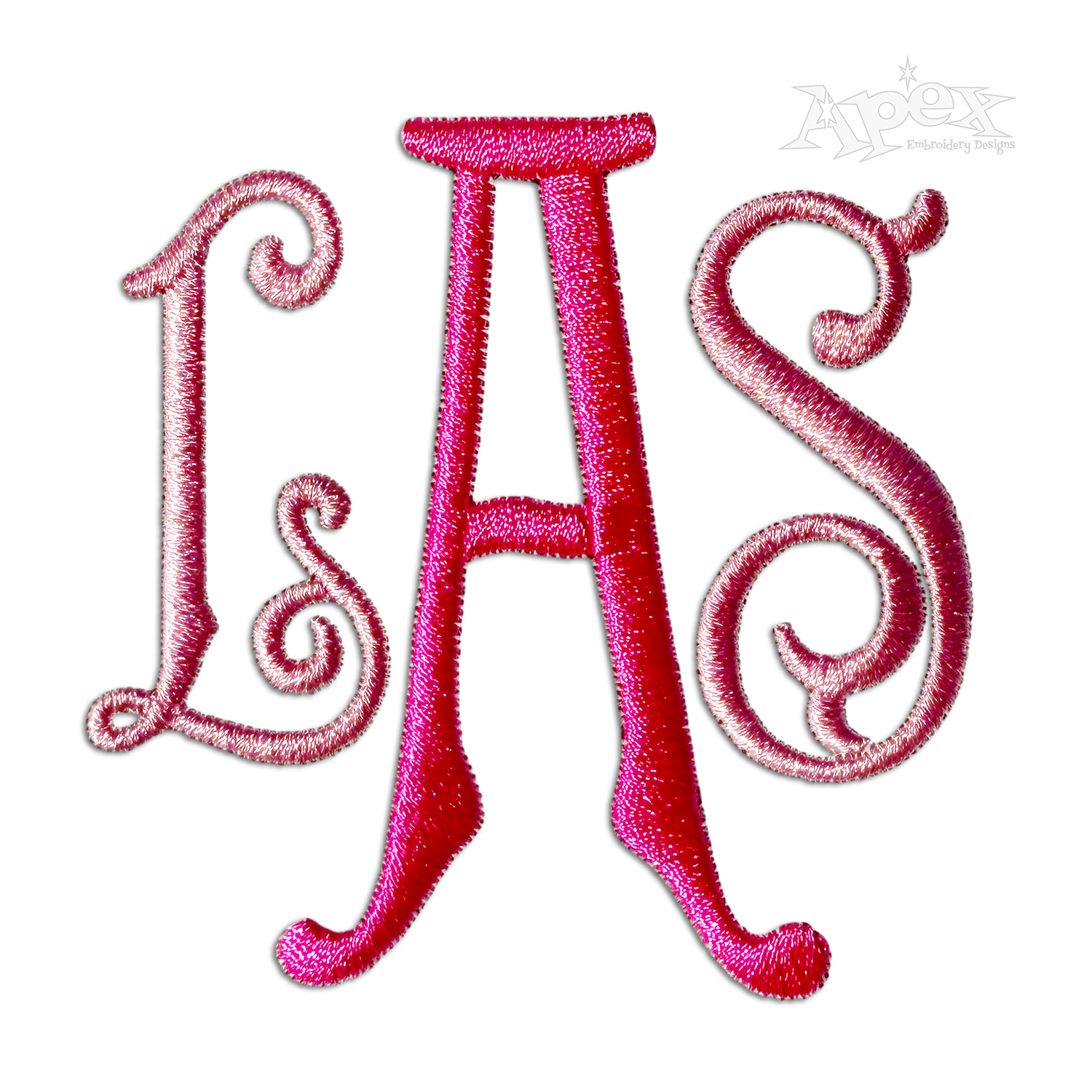
English Monogram Embroidery Font
Rooted in the timeless grandeur of classic manor estates and bespoke British tailoring, the English Monogram Embroidery Font brings an aura of refined, aristocratic distinction to modern needlework. When drawing each character, we sought to capture the dignified balance of traditional English typography?grounded serifs, majestic vertical stems, and gently sweeping flourishes that feel both commanding and effortlessly graceful. This is an alphabet crafted for those who revere understated luxury, transforming fine textiles into cherished, personalized heirlooms with every luminous stitch.
English Monogram Craft & Letterform Details
True sophistication in embroidery lies in how light interacts with thread, and the English Monogram was engineered to maximize that luminous satin sheen. Each stroke features carefully calculated inclination angles that turn fluidly through the curves, preventing bunching at sharp intersections while ensuring smooth, mirror-like thread reflection across the wider columns. The foundational serifs are fortified with directional underlay that provides structural loft and crisp boundaries without producing the dense, armor-like stiffness that plagues lesser digitizations. From the stately posture of its capitals to the subtle tapering of its terminal finials, this alphabet embodies the art of heirloom embroidery at its most enduring.